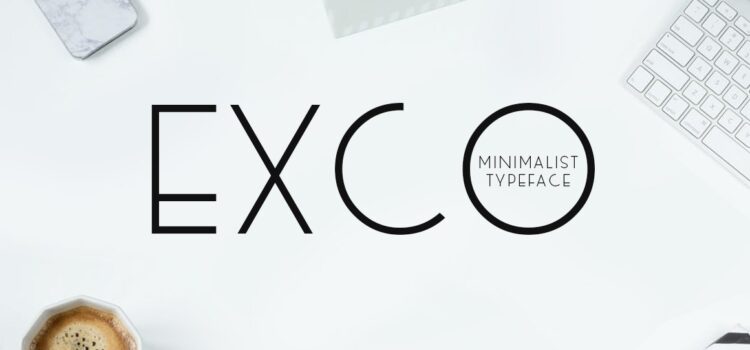
exco
Exco Font - Featured Image
Exco Font – Free Download Introduction to Exco Font Exco a minimalistic font that consists out of four styles, regular, italic, outline & shadow. 📸 Preview Gallery 6 images 📌 Product Name Exco Font 👤 Author Khurasan 📂 Category Explore